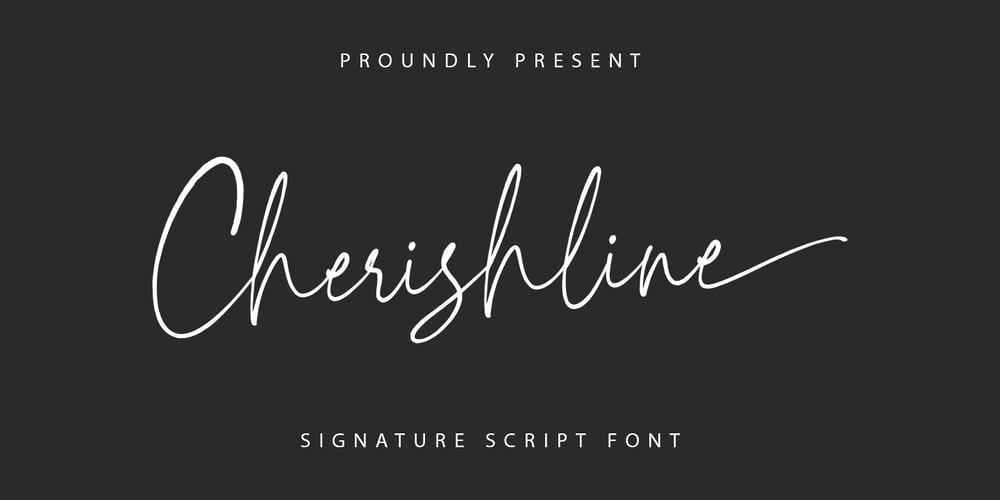
Cherishline Font Font Family was designed by Faisal Tanjung and published by sizimon. Cherishline Font contains 1 styles and family package options. Cherishline Script is a thin lettered and graceful script font. Fall for its ravishing style and use it to create gorgeous wedding invitations, beautiful stationary art, eye-catching social media posts, and much more! Cherishline Script is PUA encoded which means you can access all glyphs and swashes with ease!What’s Include : PUA encode & Opentype ( It is full of Tails and glyphs ) Multilingual support Use the fonts for: logos, branding materials, wedding sign, wedding website card, farmhouse signs, sign bridal, shirts, pantry labels, sign bridal shower, business cards, greeting cards, wall decor, social media, planner prints and websites.• This font works with any application Microsoft Word, Adobe Photoshop, Microsoft Paint, Corel, Adobe Illustrator, Cricut Design Space, and many others!If you have any question please do not hesitate to contact me. Thank You!